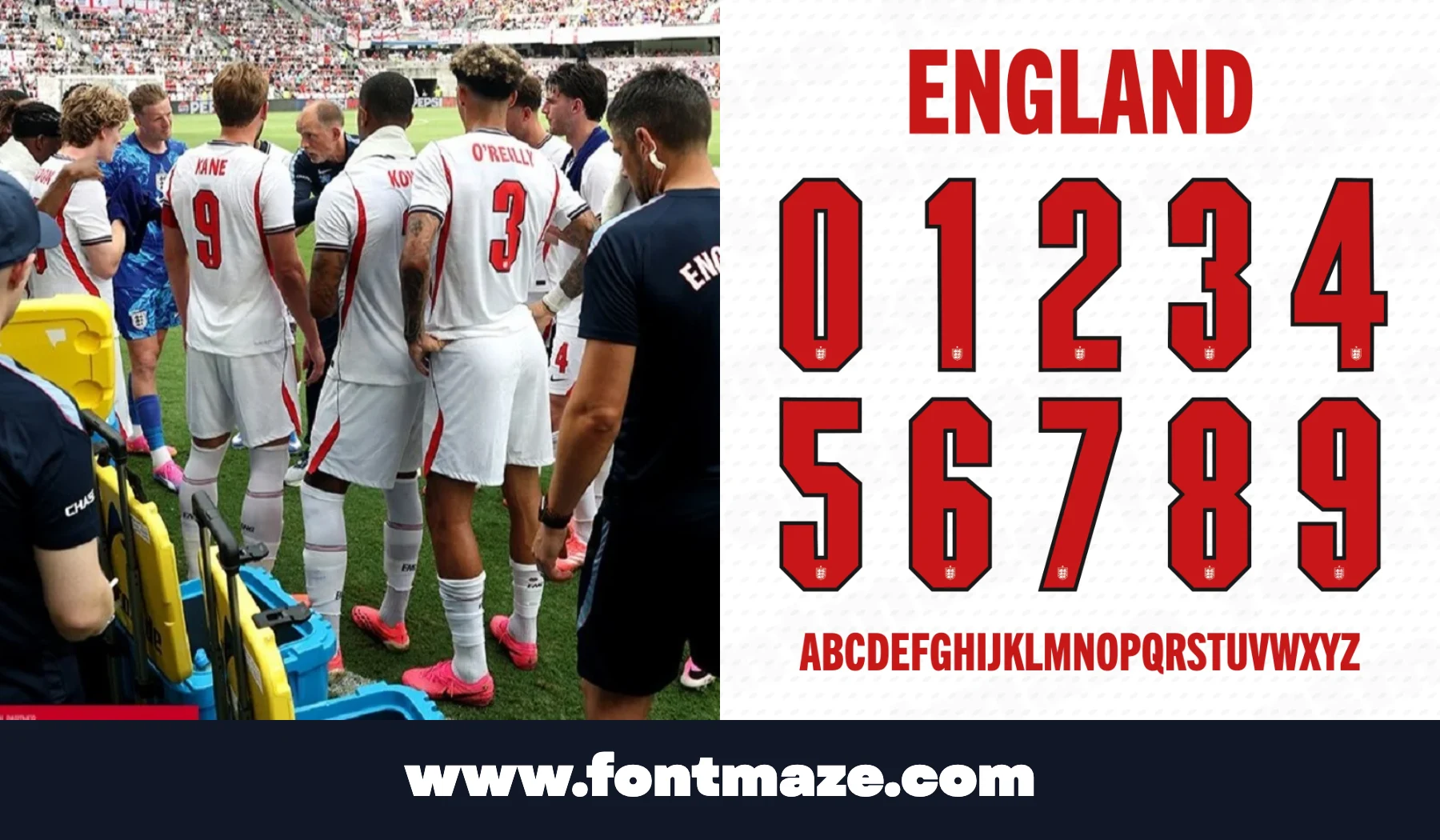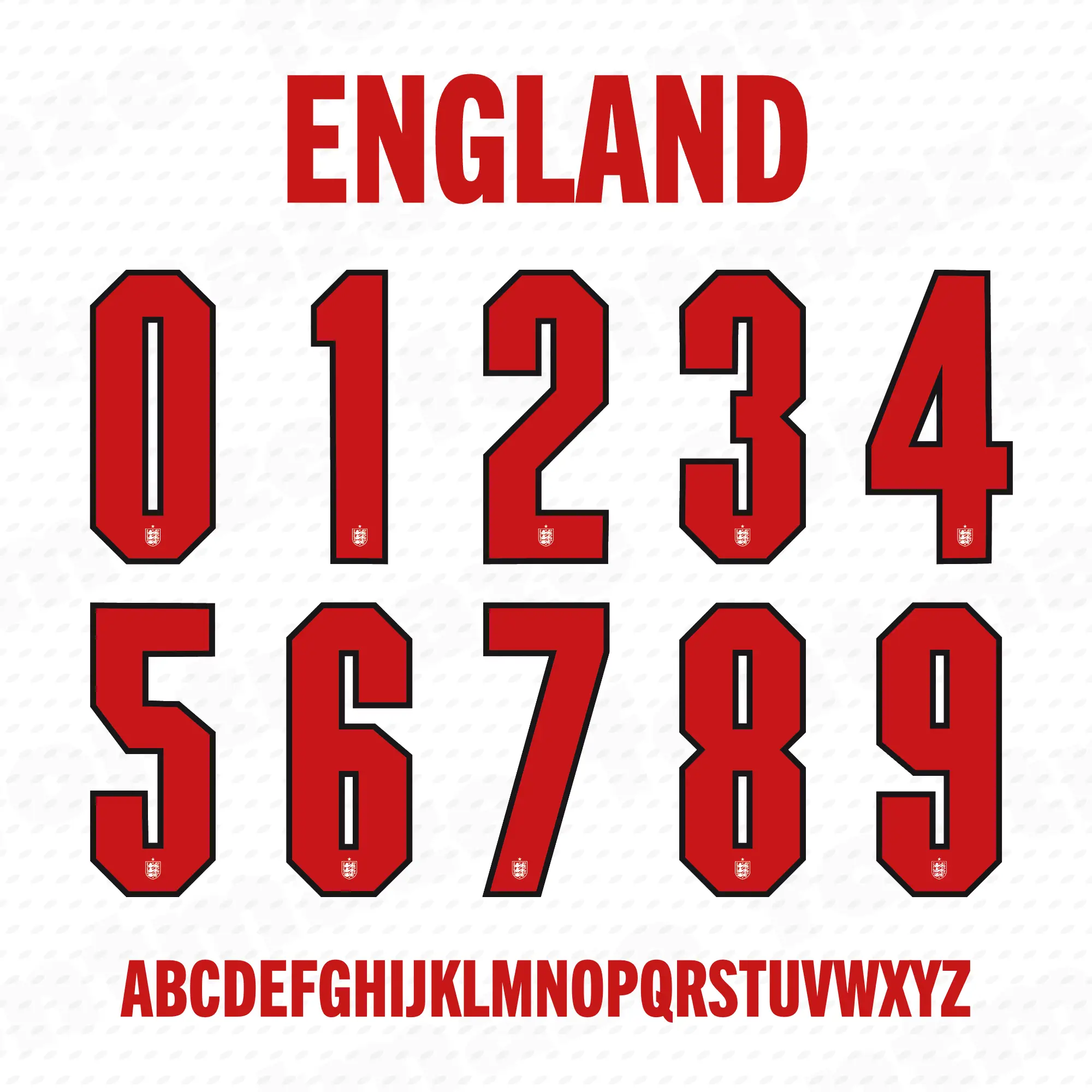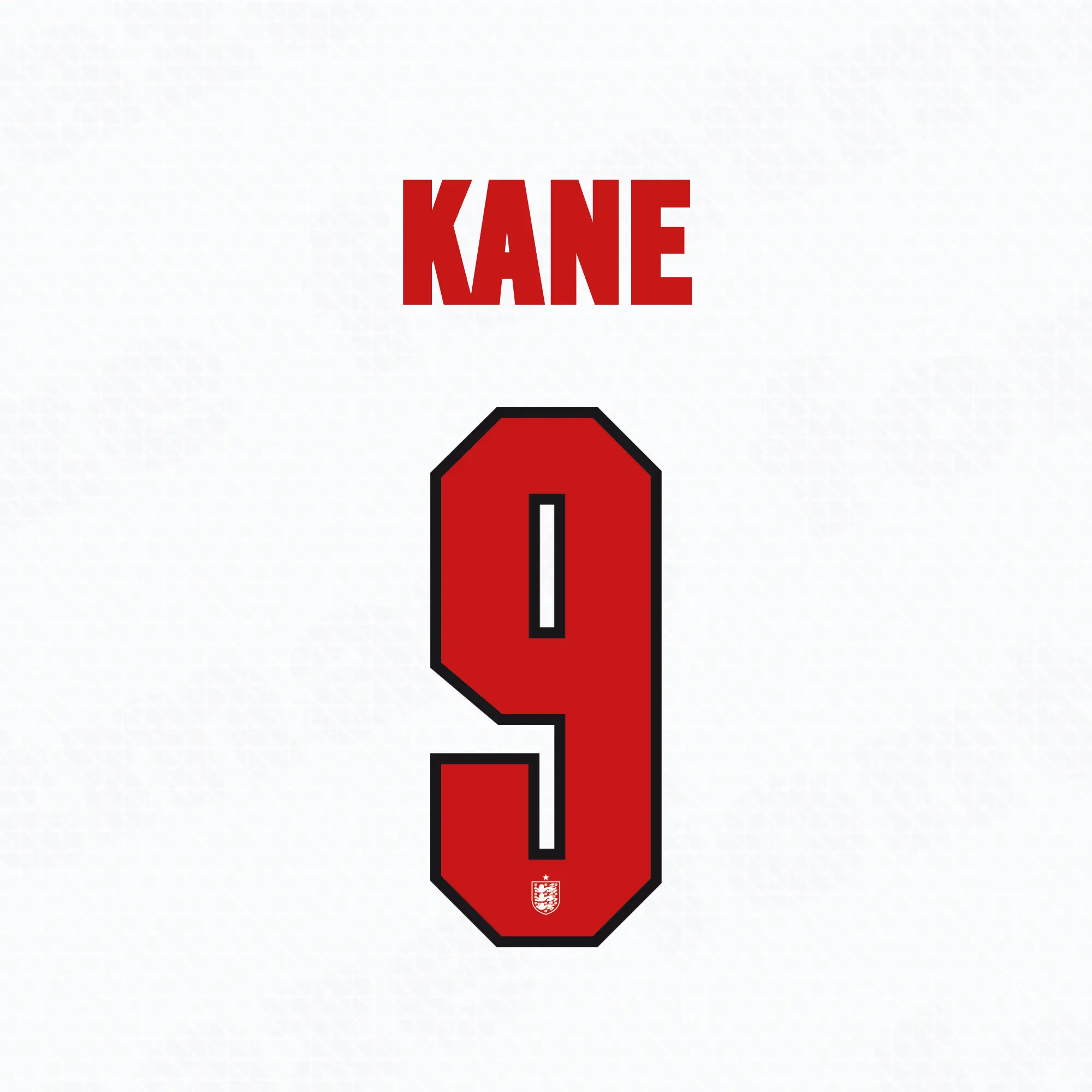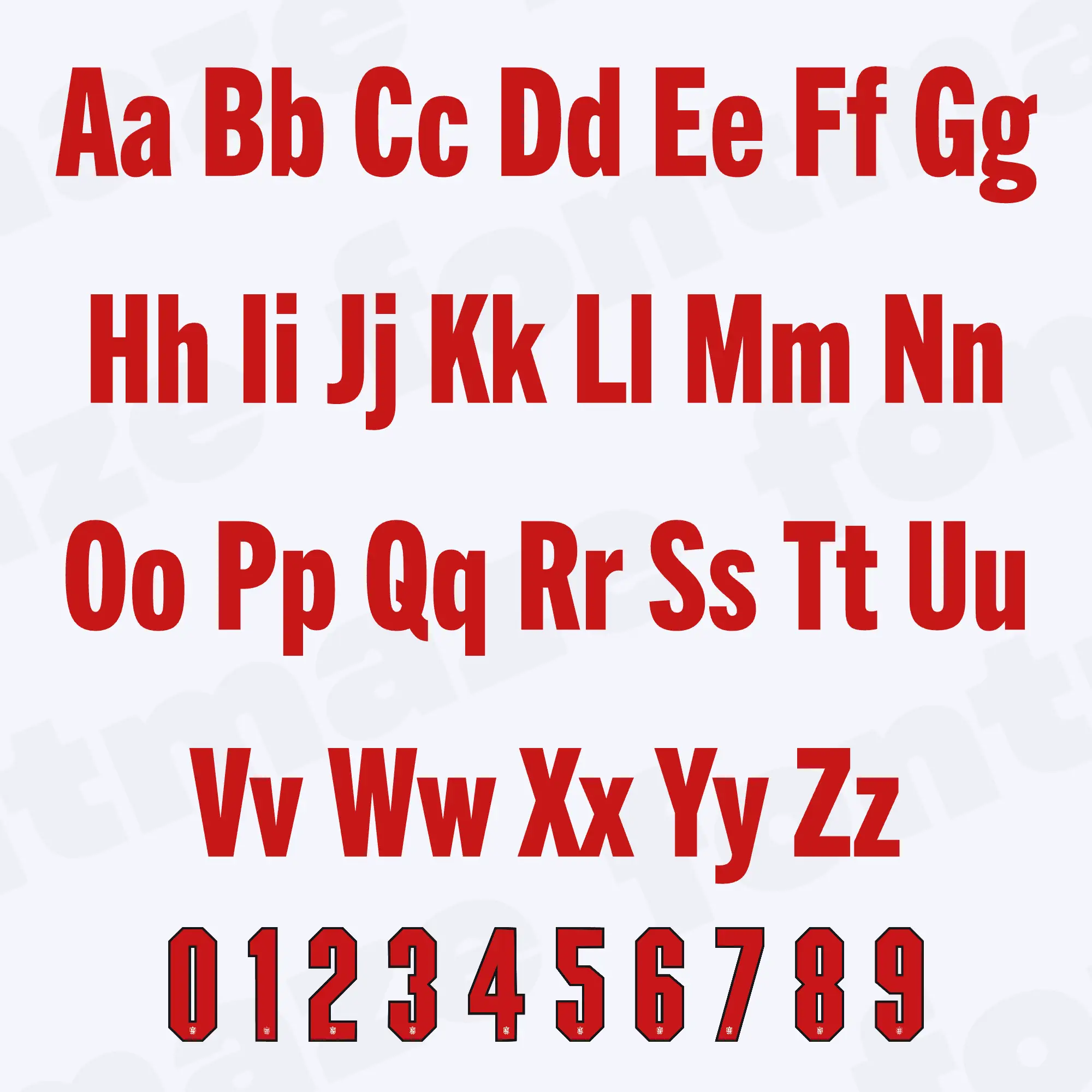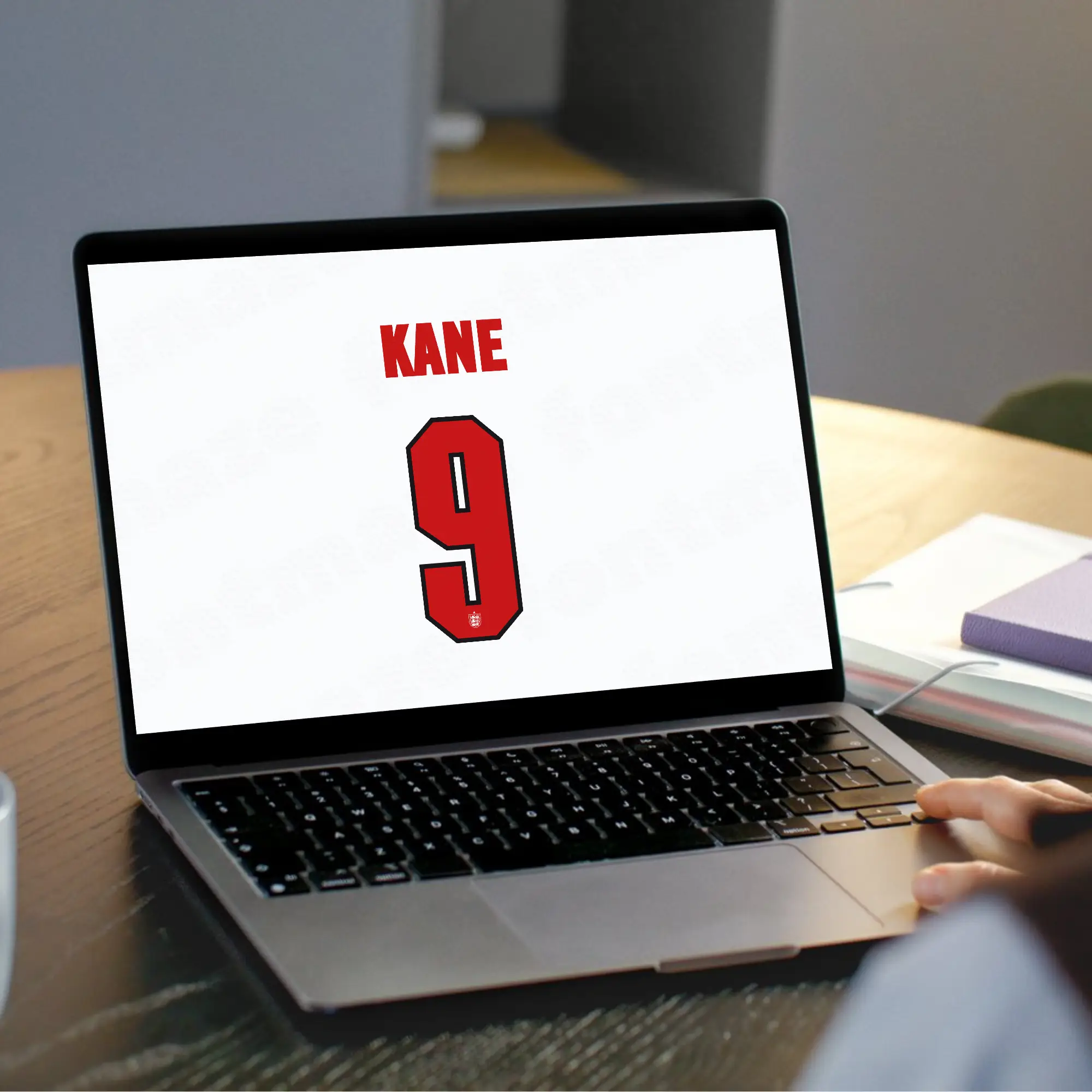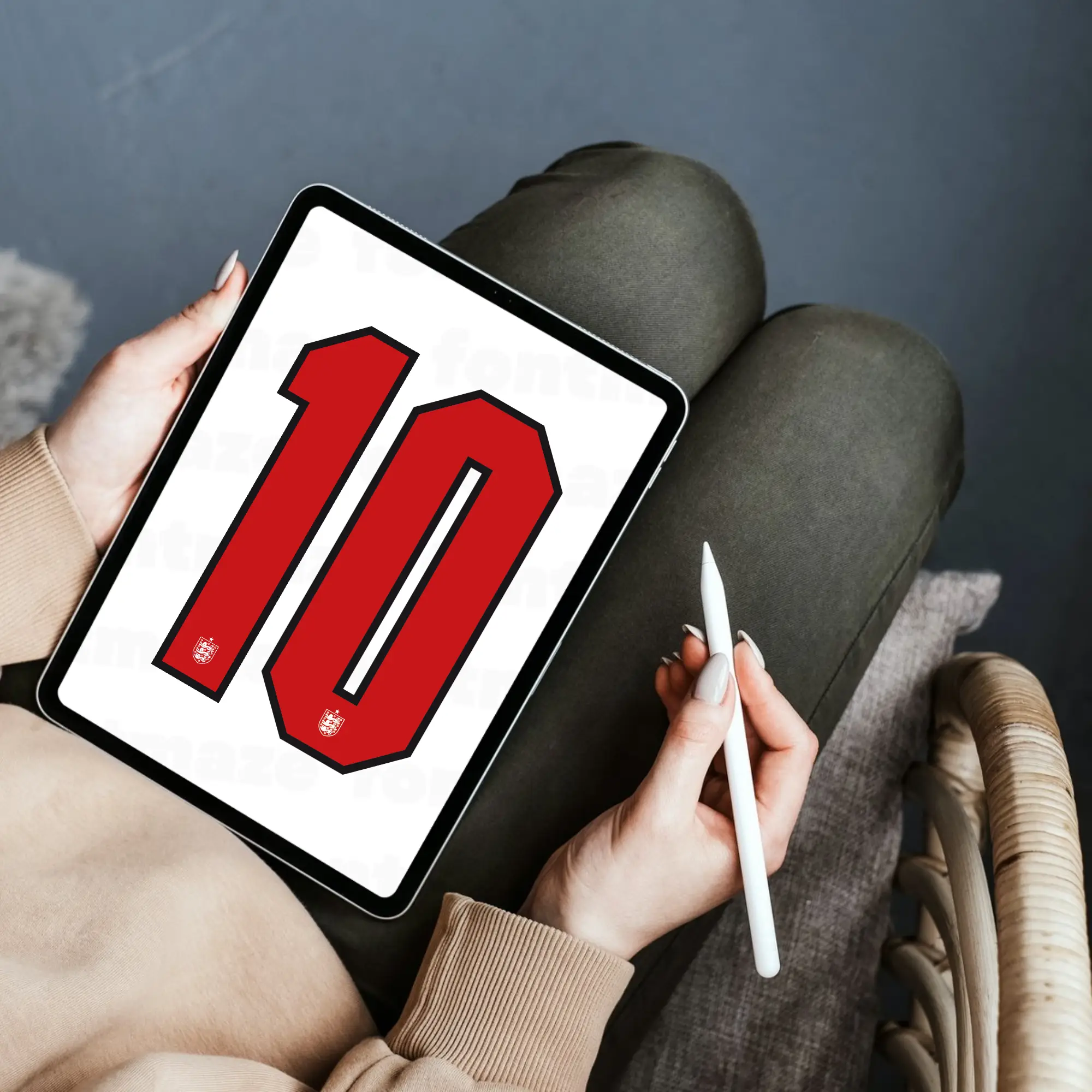
England Football Font World Cup 2026
Give your football shirts, custom jerseys, and match-day artwork a sharp England-inspired look with the England Football Font World Cup 2026. It is made for creators building player names, shirt numbers, posters, and fan graphics with a clean sports lettering style.
This England Football Font works well for custom jerseys, football numbers, player-name lettering, team-inspired graphics, and quick Cricut or Canva projects. Use it for a Harry Kane inspired fan shirt design, a match day design, or a printable soccer graphic without recreating each letter by hand.